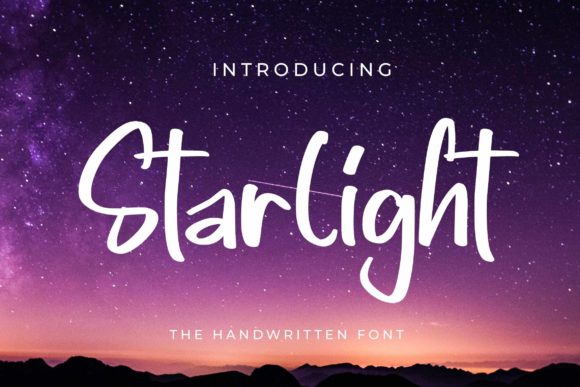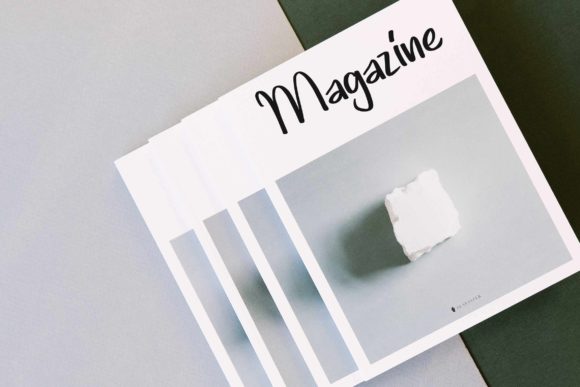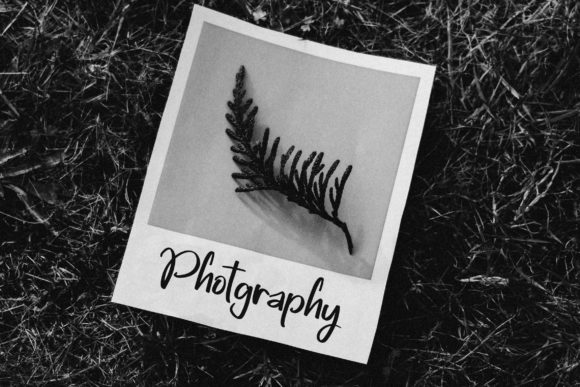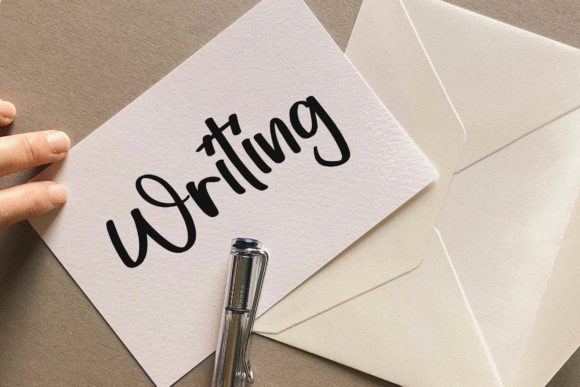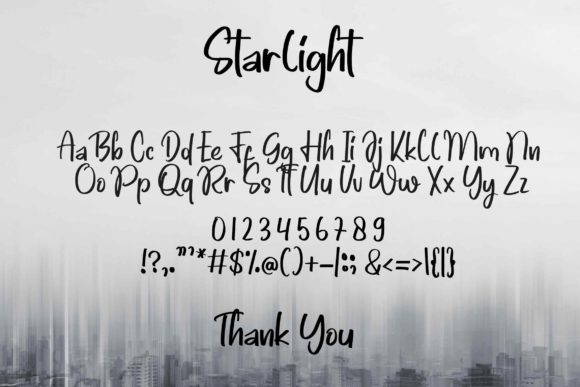
Starlight Font
About Starlight Font
Starlight is a simple and seductive handwritten font. Made for packaging products, invitation cards, pamphlets, posters, logos, or designs that require an elegant and casual touch. Fall in love with its very casual and simple style, perfect for creating spectacular designs!